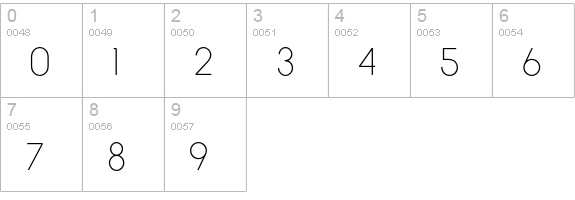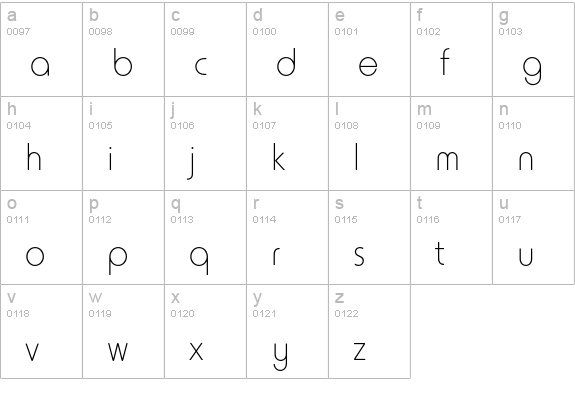
Horatio D Light is a refined, elegant variant in the Horatio typeface family \xE2\x80\x94 well suited to elegant body text, refined sub-headings, and luxury branding.
Horatio D Light font is a modern and stylish typeface designed to bring elegance and sophistication to your projects. With its sleek lines and contemporary design, this font is perfect for a wide range of applications, from branding to editorial design. The light weight of Horatio D Light font gives it a delicate and refined appearance, making it ideal for adding a touch of sophistication to your designs. Best of all, Horatio D Light font is available for free download at FontsMarket.com. This means you can easily access this stunning typeface and use it in your projects without any cost. Whether you're working on a personal project or a professional design, Horatio D Light font offers a beautiful and versatile option that will elevate your work to the next level. Download it today and start creating with this elegant and modern font.